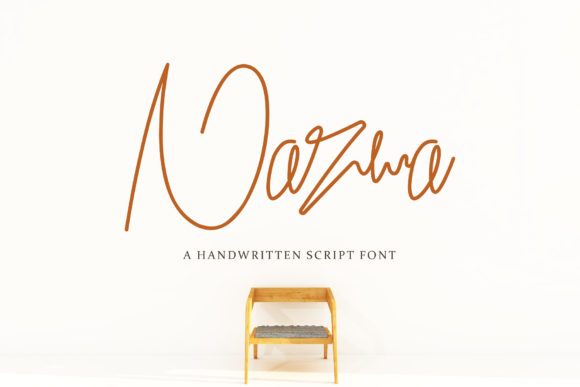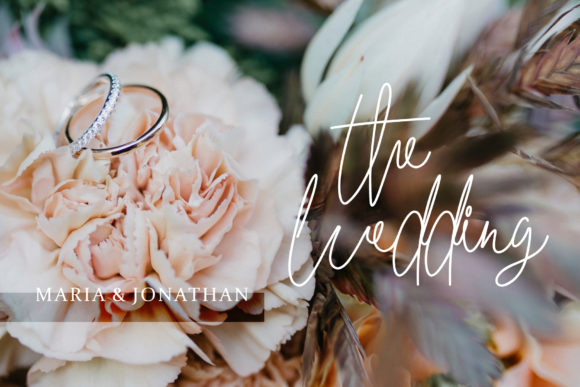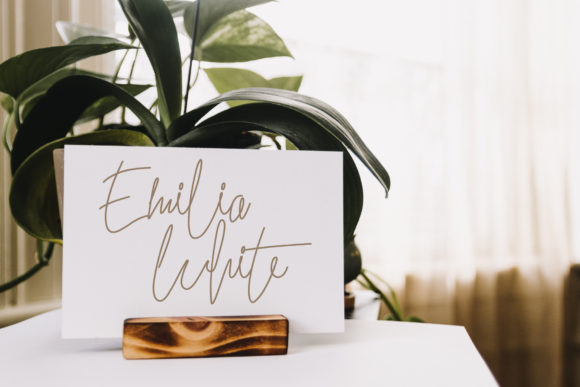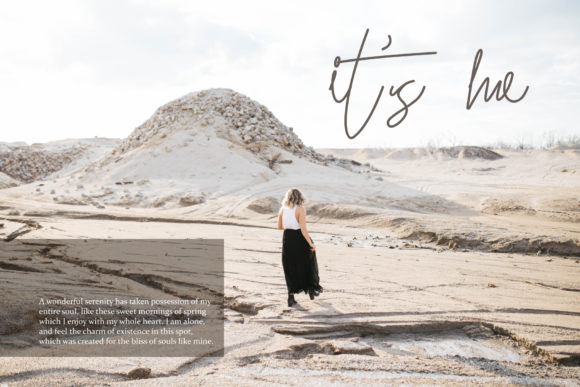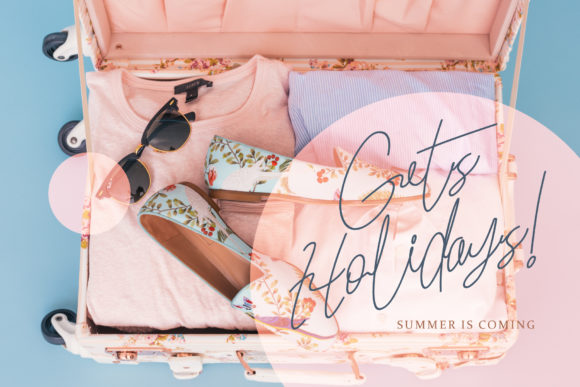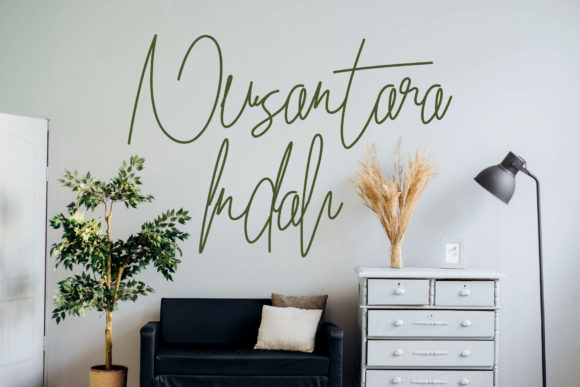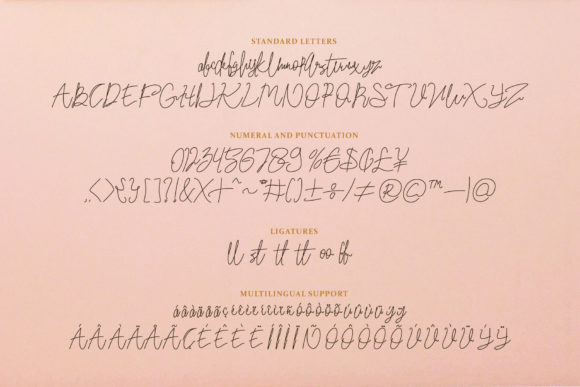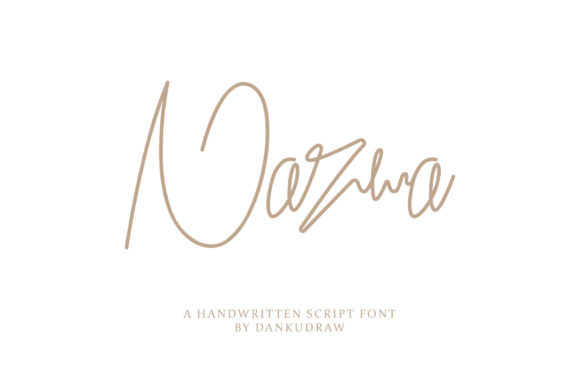
HomeScript FontsNazwa Font Script Fonts Nazwa Font FacebookXPinterestWhatsApp Nazwa Font Poster 2 Nazwa Font Poster 3 Nazwa Font Poster 4 Nazwa Font Poster 5 Nazwa Font Poster 6 Nazwa Font Poster 7 Nazwa Font Poster 8 About Nazwa Font Nazwa is an incredibly stunning handwritten font with a bold twist. It will turn any design idea into a stand out! DOWNLOAD NOW People also explored Kingdom Font Francisco Font Wild Ketchup BTN Smithen Goulding Font Elmimore Bronanghenor Font Lovely Snowy Font Timeless Notes Font Alista Script 309 0 TagsNazwa Font Previous articleAmokara Script FontNext articleJengky Font LEAVE A REPLY Cancel reply Comment: Please enter your comment! Name:* Please enter your name here Email:* You have entered an incorrect email address! Please enter your email address here Website: Save my name, email, and website in this browser for the next time I comment. Personal Use Free Alligator Font Personal Use Free Read more about this font Austins Personal Use Free Read more about this font Term Free Personal Use Free Read more about this font Zelega Zenega Personal Use Free Read more about this font BLOG Top 10 Handwritten Fonts That Elevate Your Designs Top 10 Handwritten Fonts That Will Elevate Your Designs Handwritten fonts bring a warm, personal touch to every creative project. Whether you're designing logos, invitations,... Top 7 Google Fonts Alternatives for Faster and Privacy-Friendly Web Design (2025) Exploring Font Trends The 10 Best Handwriting Fonts to Add Personality to Your Designs